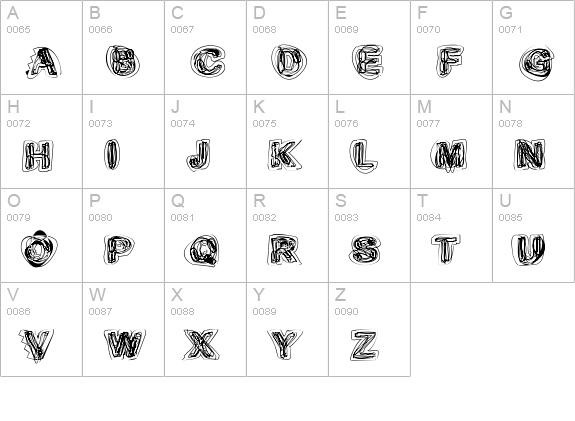
Sketch1 Font Details
Introducing Sketch1, a captivating and versatile font that effortlessly combines modernity with a touch of artistic flair. This unique typeface is the perfect choice for those seeking a font that stands out from the crowd and adds a playful element to their designs. Sketch1 is characterized by its hand-drawn quality, giving it a charming and organic feel. Each letter has been meticulously crafted, resulting in a font that is both legible and visually appealing. Its slightly irregular lines and imperfect curves add a sense of authenticity, making every word written with Sketch1 truly one-of-a-kind. With its wide range of weights and styles, Sketch1 offers endless possibilities for creative projects. Whether you're designing a logo, creating eye-catching headlines, or crafting a poster, this font will effortlessly elevate your work to the next level. What makes Sketch1 even more remarkable is that it is absolutely free to download at FontsMarket.com. This means that you can bring this stunning font into your design arsenal without breaking the bank. Don't miss out on the opportunity to add Sketch1 to your collection and enjoy the freedom and creativity it brings. So why wait? Download Sketch1 today and let your imagination run wild. Transform your designs into captivating works of art that leave a lasting impression. With Sketch1, the possibilities are endless, and the best part is, it won't cost you a dime. Experience the freedom of this remarkable font and let your creativity soar.